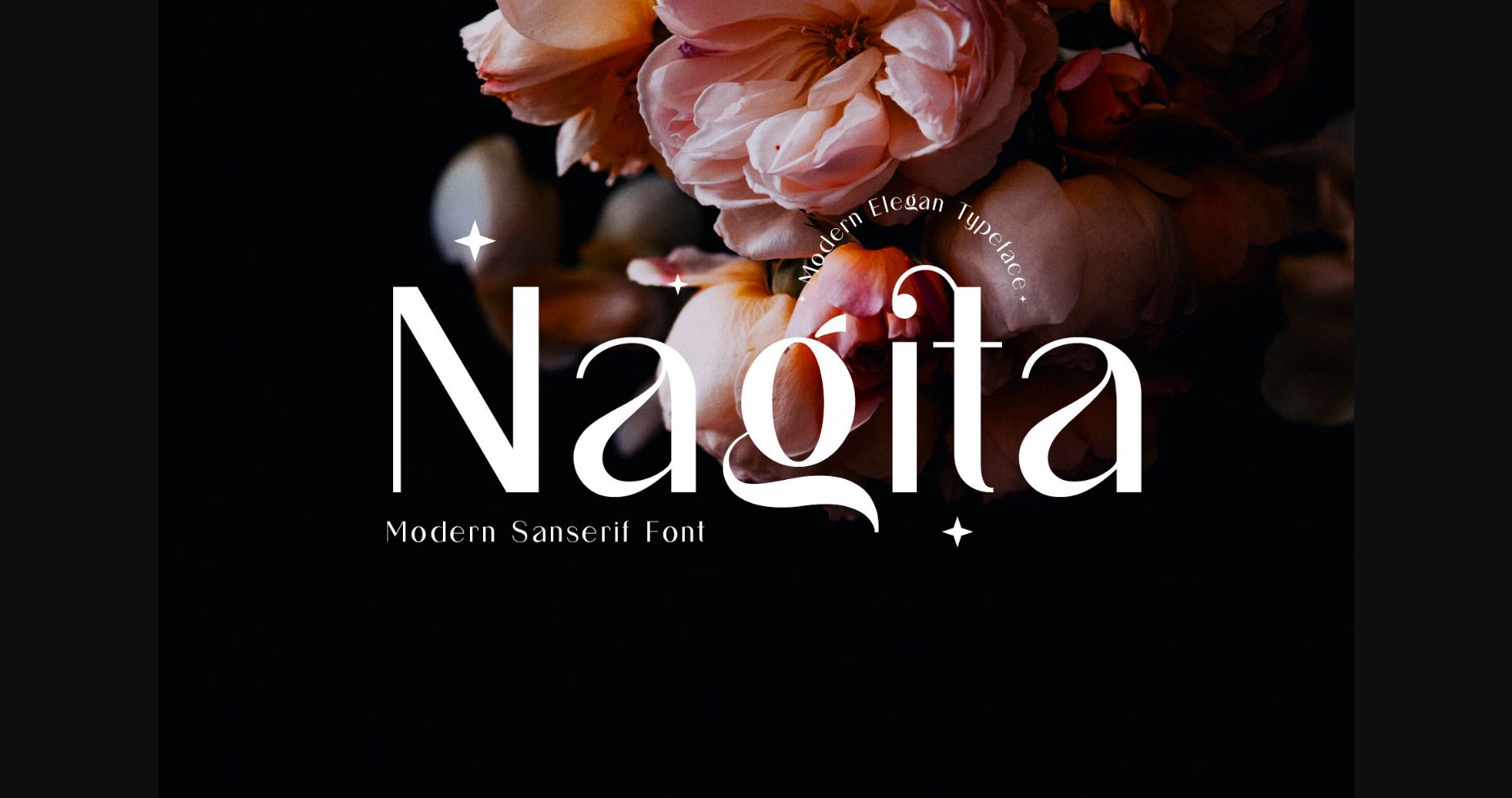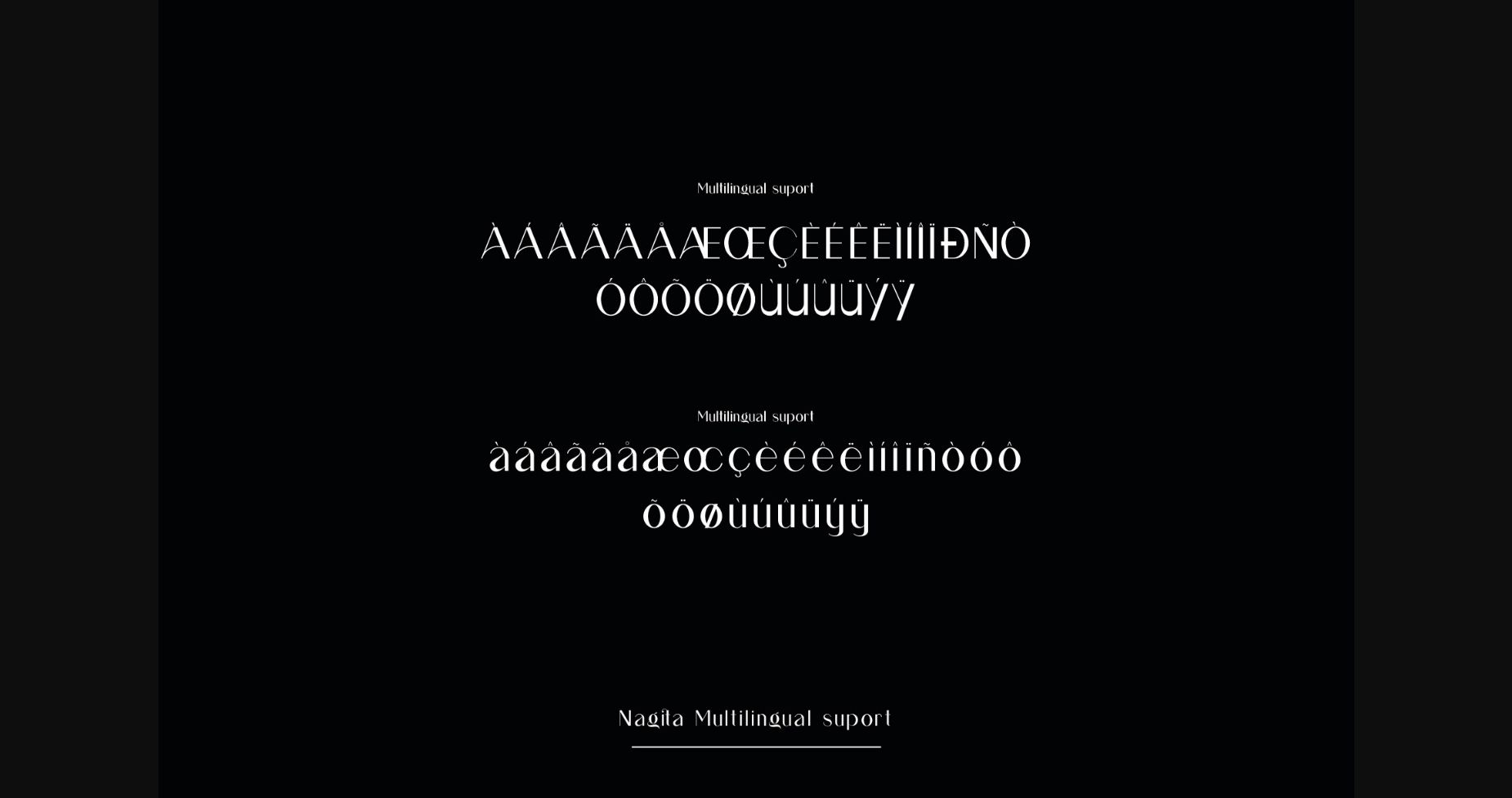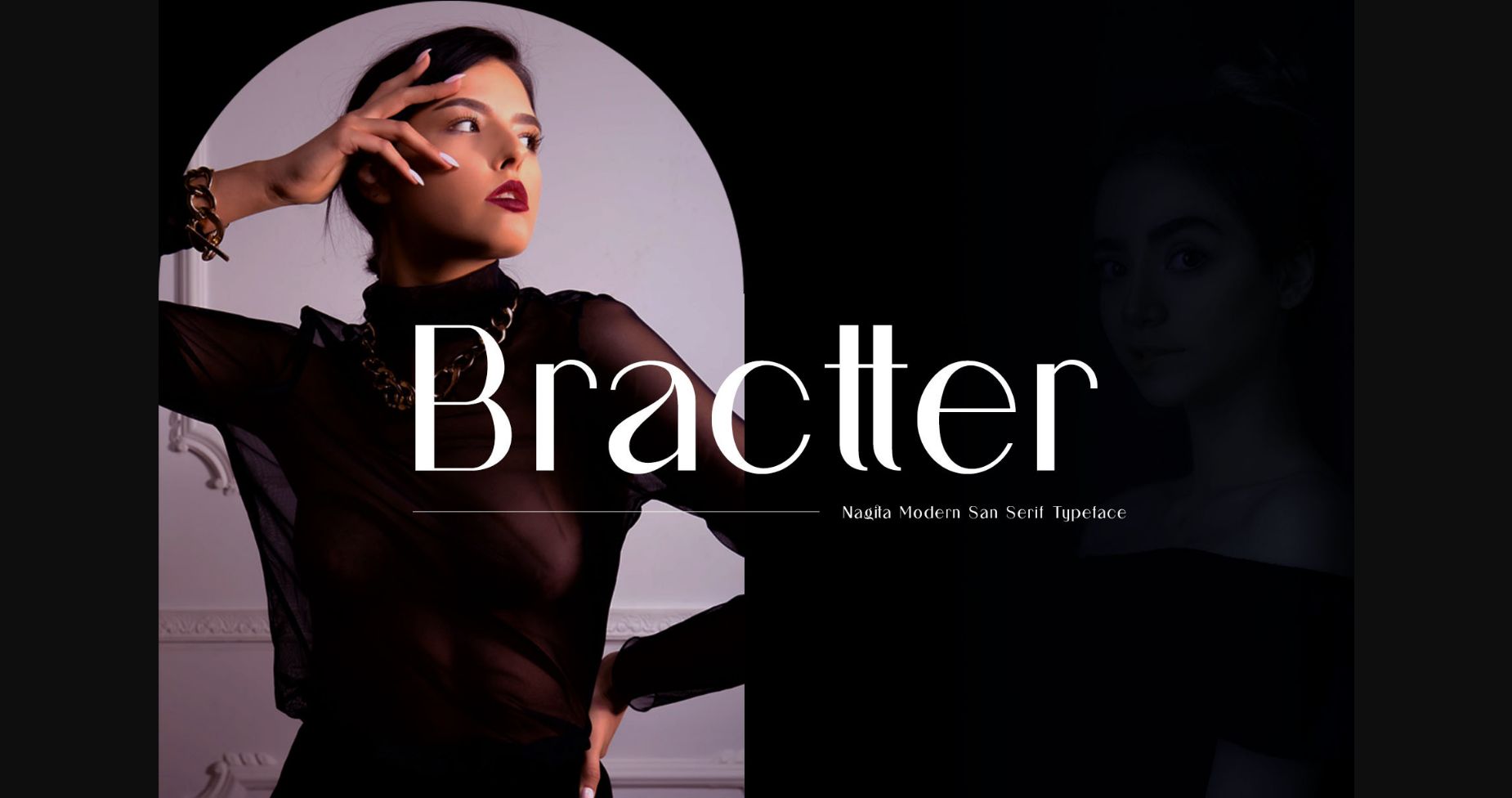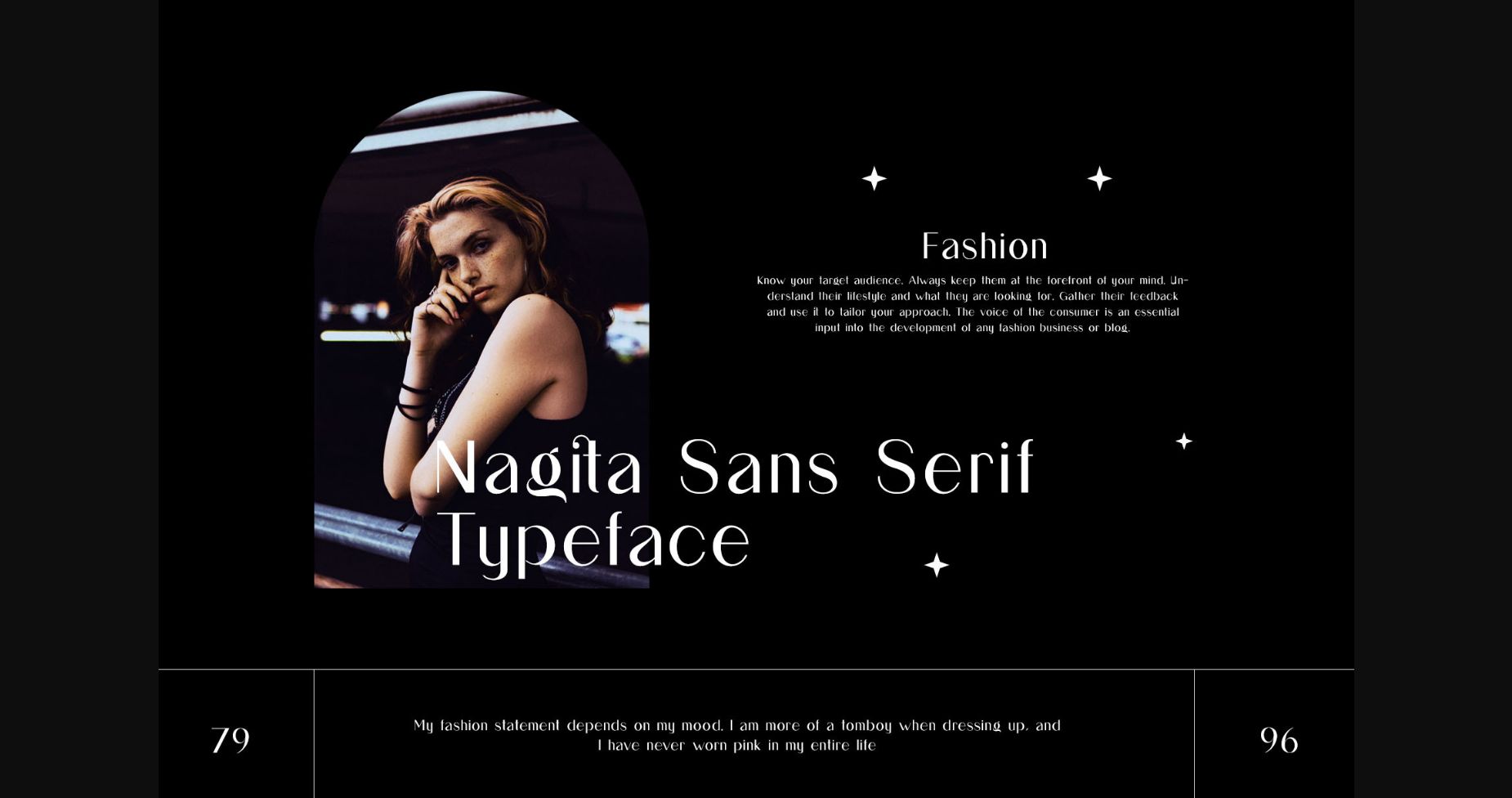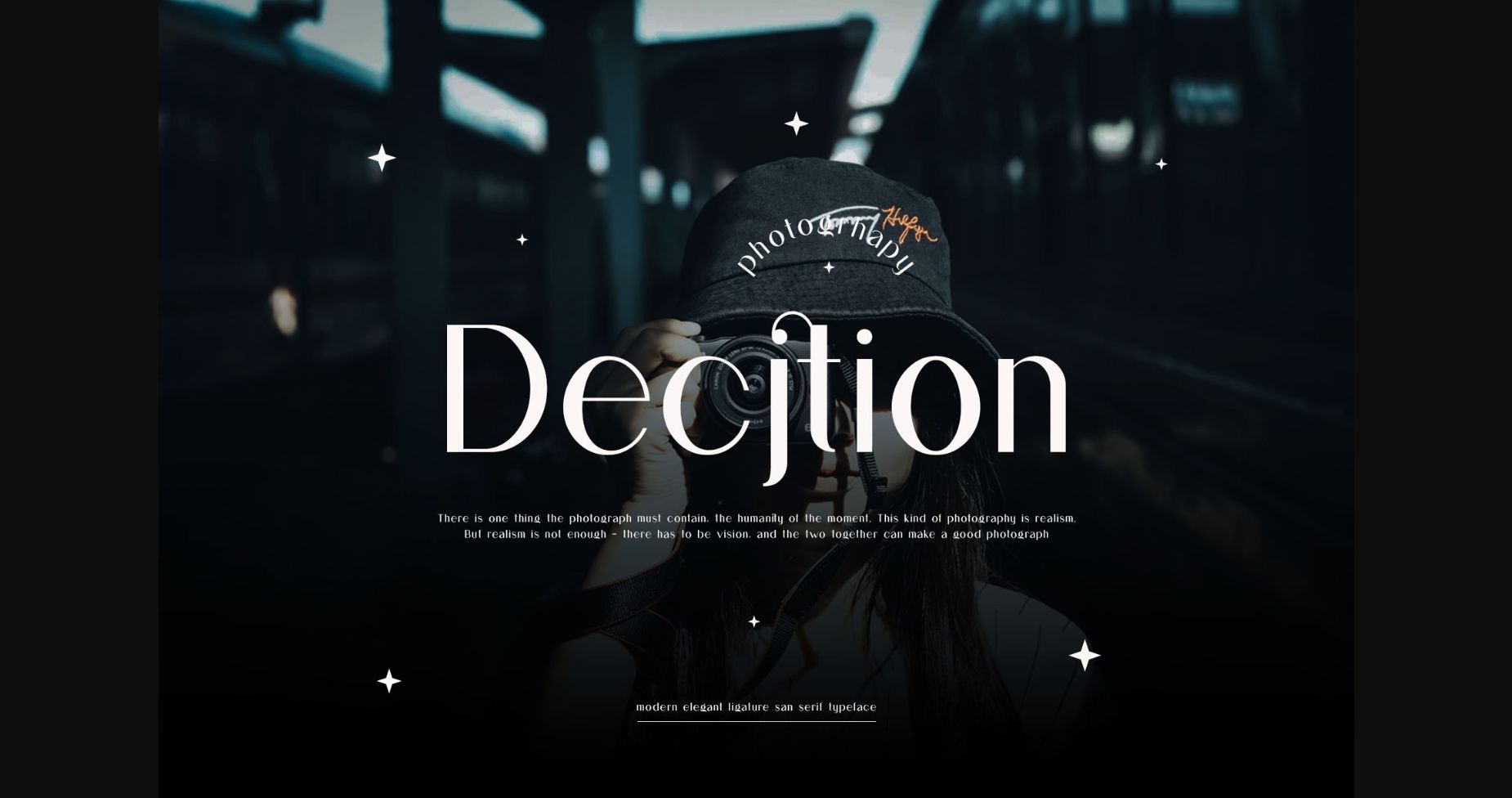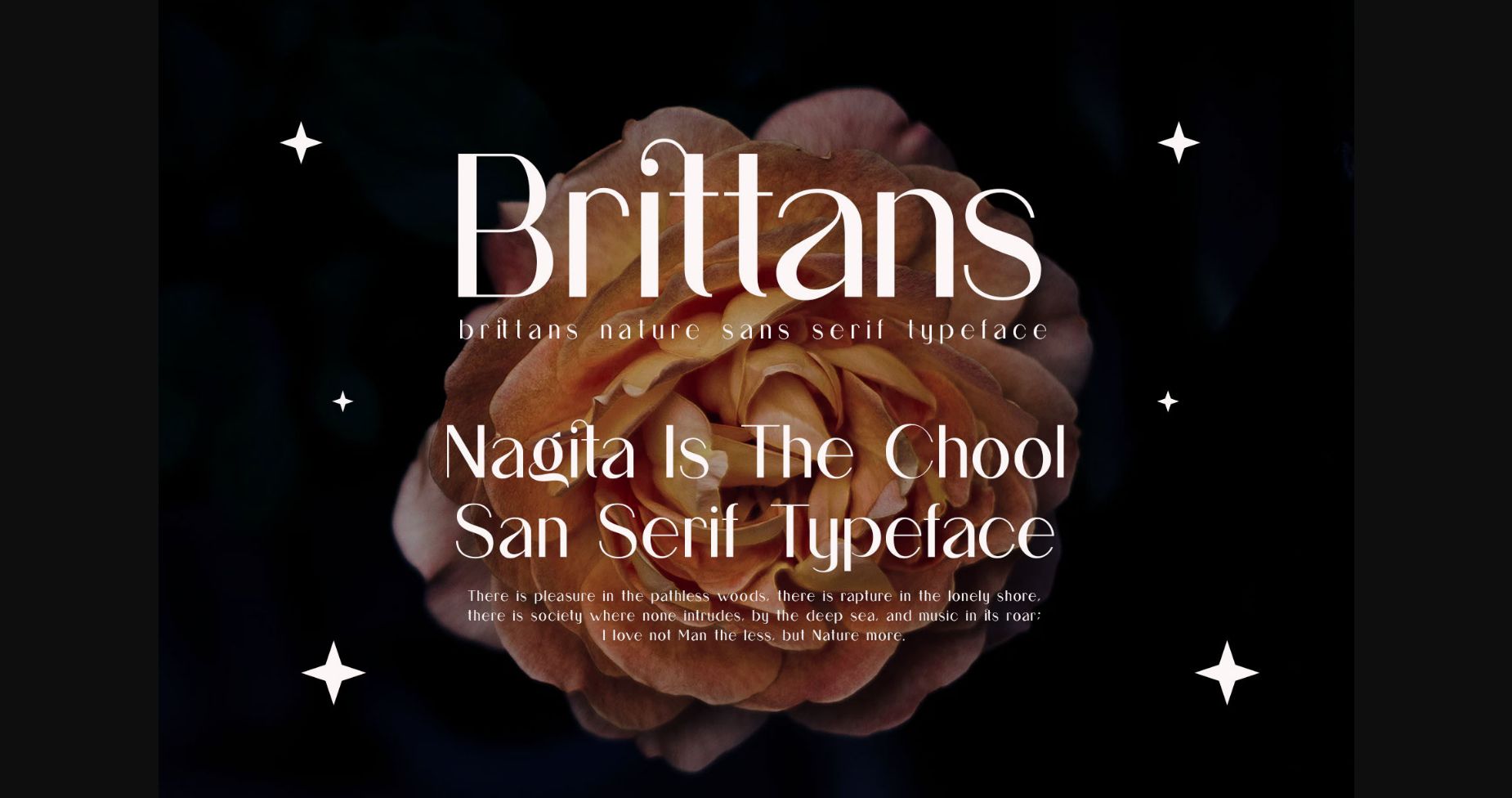
About Nagita Font
Nagita is a modern and elegant sans serif font. It has a clean, thin and smooth vibe and it will be a hit for any design that you want to add it to.